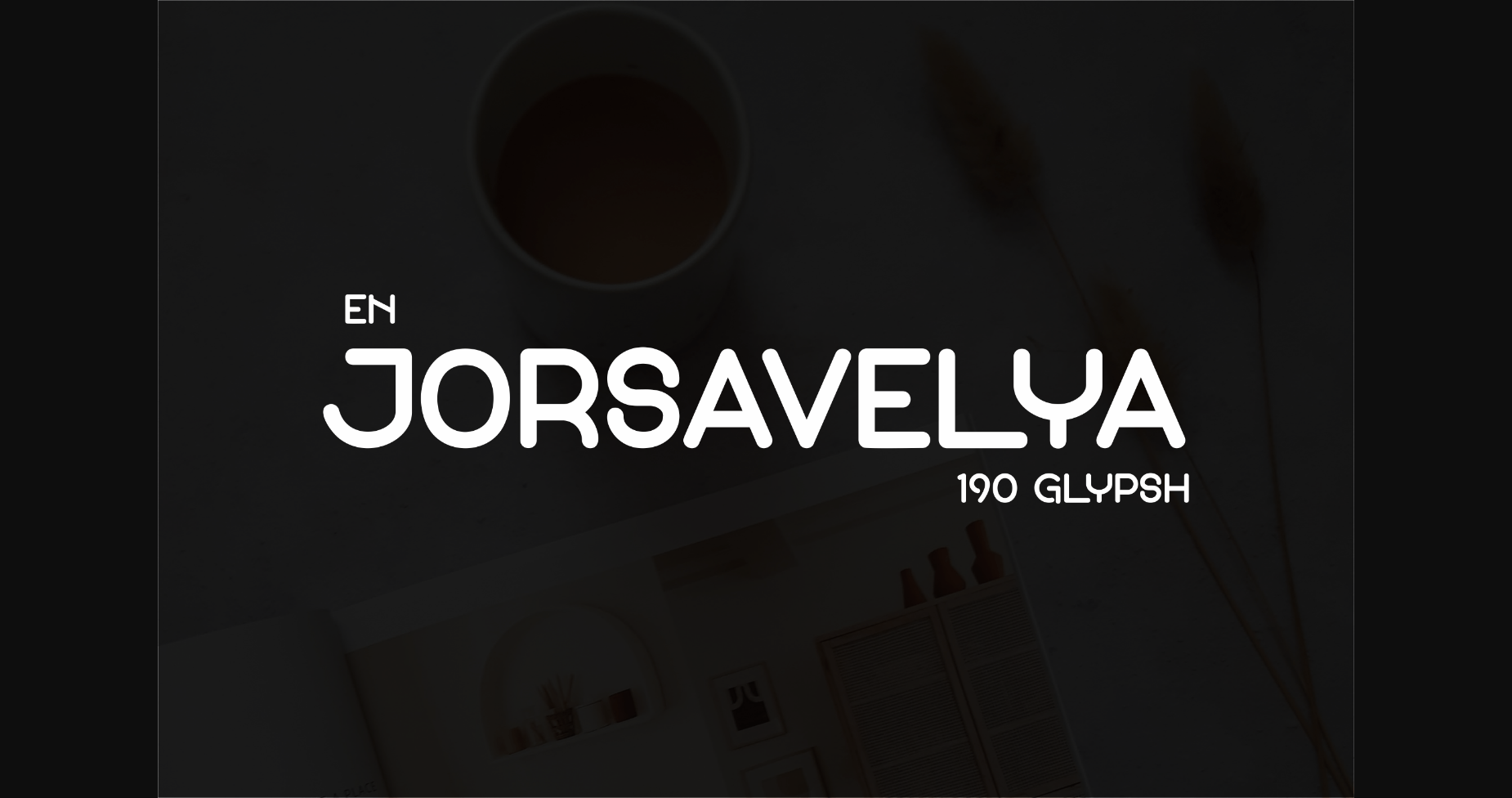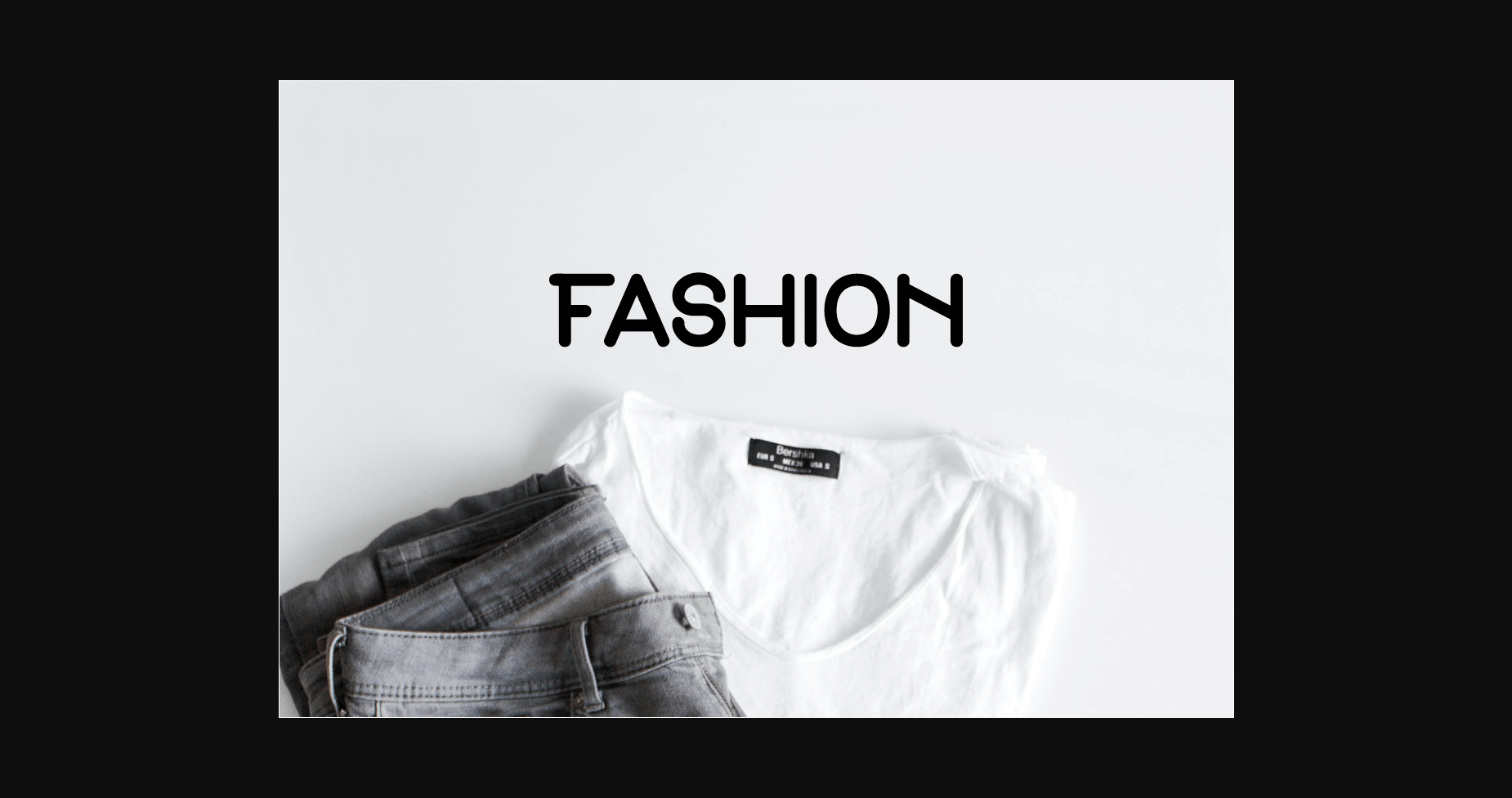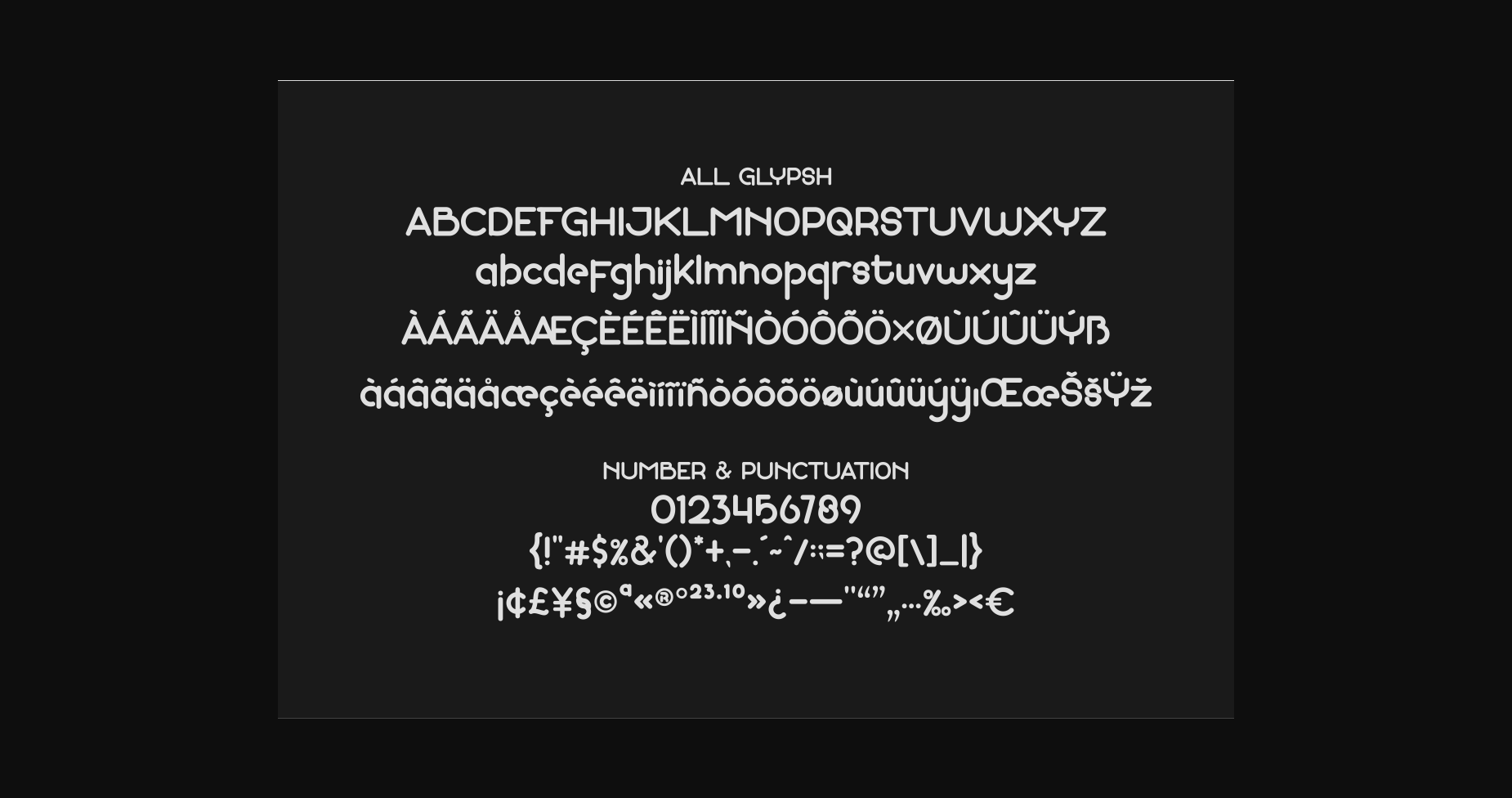
About En Jorsavelya Font
En Jorsavelya Font It has an elegant, classy look and is modern. Itβs a great font for fashion, apparel projects, signature, album covers, logo, branding, magazine, social media, & advertisements, but also works great for other projects.